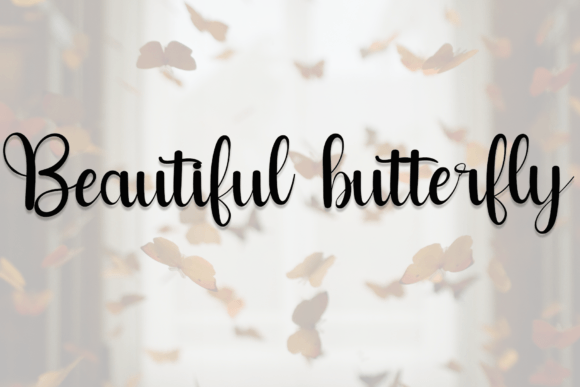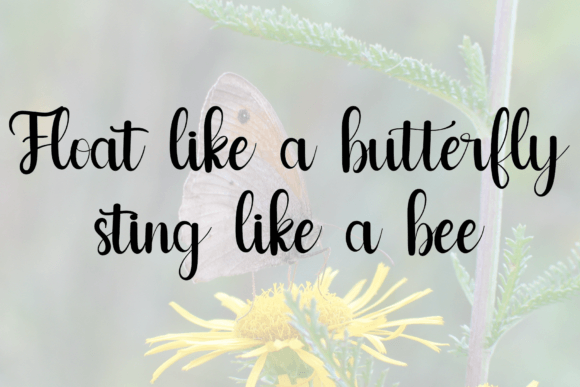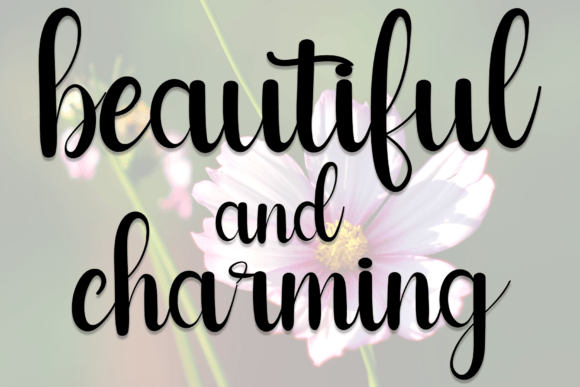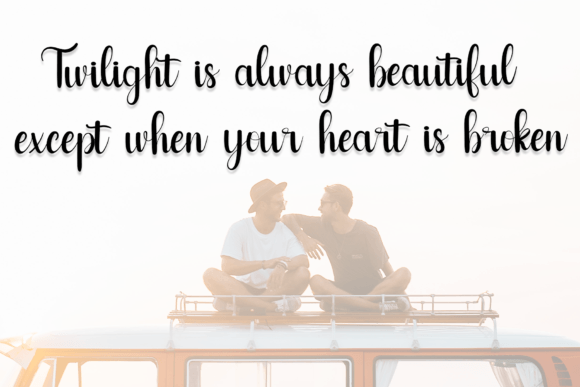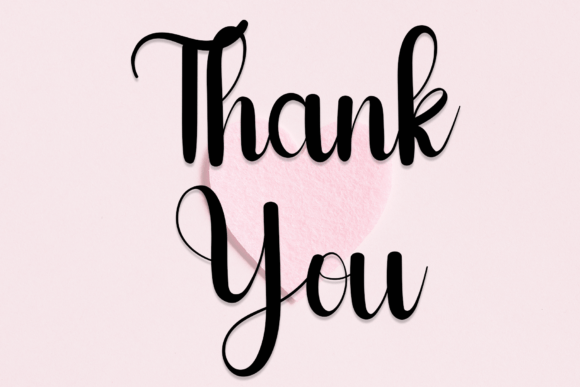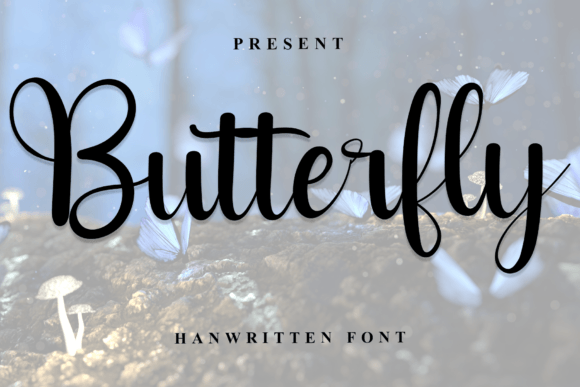
Introducing Butterfly Font: Elevate Your Designs with Elegance
Are you on the hunt for a font that exudes sophistication, elegance, and a touch of modern flair? Look no further than the Butterfly Font. This exquisite handwritten font is meticulously crafted to capture the essence of classy calligraphy while infusing it with a contemporary twist. Whether you’re a designer, crafter, or simply someone who appreciates the beauty of typography, Butterfly Font is sure to become your new favorite.
The Beauty of Butterfly Font
Butterfly Font is a masterclass in elegant typography. Its handwritten strokes are fluid and refined, evoking the feeling of luxurious calligraphy. Yet, despite its classic influences, the font feels refreshingly modern and versatile. This unique blend of old and new makes it perfect for a wide range of design projects, from wedding invitations and branding materials to packaging and digital media.
What Makes Butterfly Font Stand Out?
- Classy Calligraphic Influences: Butterfly Font draws inspiration from traditional calligraphy, giving it a sophisticated and high-end feel.
- Contemporary Twist: The font’s modern flair ensures it remains fresh and relevant, even in today’s fast-paced design landscape.
- Versatility: Whether you’re working on a digital project or a print design, Butterfly Font adapts seamlessly to any medium.
- Elegance: The font’s refined strokes and beautiful letterforms make it perfect for designs that require a touch of luxury.
Why Designers and Crafters Love Butterfly Font
Designers and crafters alike are drawn to Butterfly Font for its unique combination of style and versatility. Here are just a few reasons why:
- Easy to Read: Despite its elegant nature, Butterfly Font remains highly legible, making it suitable for both headlines and body text.
- Highly Customizable: The font’s flexibility allows you to experiment with different styles, sizes, and colors to achieve the perfect look for your project.
- Timeless Appeal: Butterfly Font’s classic influences ensure it won’t go out of style anytime soon, making it a valuable addition to your font library.
Using Butterfly Font in Your Projects
Butterfly Font is incredibly versatile and can be used in a variety of design projects. Here are some ideas to get you started:
- Wedding Invitations: Add a touch of elegance to your wedding invitations, save-the-dates, and other stationery with Butterfly Font.
- Branding Materials: Use Butterfly Font to create a sophisticated brand identity that sets your business apart.
- Packaging Design: Elevate your product packaging with Butterfly Font’s luxurious feel.
- Digital Media: From social media graphics to website headers, Butterfly Font is perfect for any digital design project.
In conclusion, Butterfly Font is a stunning handwritten font that offers the perfect blend of elegance, sophistication, and modern flair. Its versatility, readability, and timeless appeal make it an excellent choice for designers and crafters looking to elevate their designs. Whether you’re working on a wedding invitation, branding materials, or digital media, Butterfly Font is sure to become your go-to font for all your design needs.